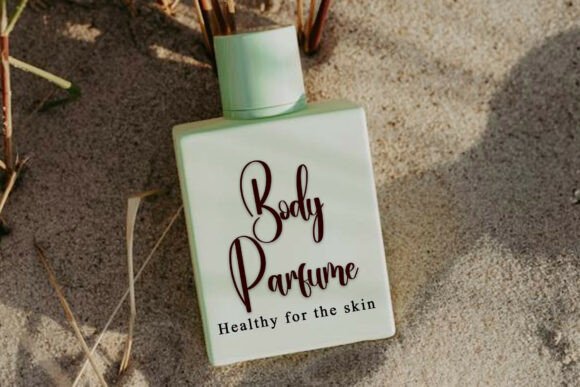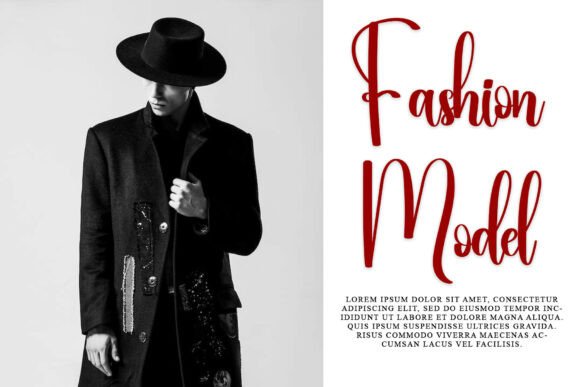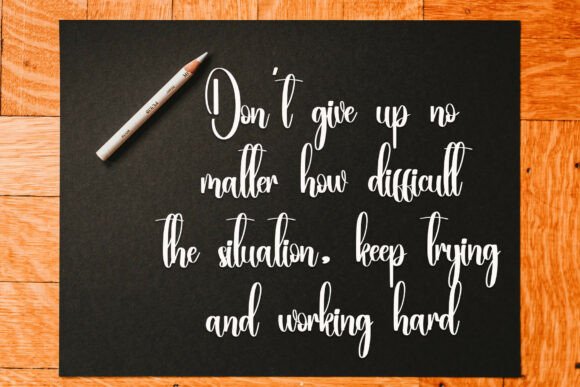
Introduction to Satisfying Font
As designers, we’ve all been there – staring at a blank canvas, trying to bring our creative vision to life. The perfect font can make all the difference. For me, it’s the moment when a project starts to take shape, and the right typography elevates the entire design. That’s where the Satisfying Font comes in – a stunning, elegant font that exudes a timeless classic calligraphy style.
This beautiful font is more than just a pretty face; it’s a valuable design resource that can elevate any creative project. With its impeccable form and balanced, varied design, it’s no wonder that designers are flocking to this free download. Plus, with its transparent background and high-quality design, it’s the perfect addition to any design portfolio.
- Includes a comprehensive character set with over 1000 glyphs, covering a wide range of languages and alphabets.
- Designed with a clean and modern aesthetic, making it suitable for a variety of design projects, from logos to typography.
Honest Review: Satisfying Font
As a designer, I’m always on the lookout for new and exciting design resources to enhance my creative projects. Recently, I had the chance to try out the Satisfying Font, and I’m excited to share my honest review with you.
What works well: ✨ The Satisfying Font is a high-quality font that comes in a variety of styles, making it perfect for a range of creative projects. I love how easy it is to use and customize, and the transparent background option is a huge plus. It’s also a free download, which is always a bonus!
What’s not so great: ⚠️ While the Satisfying Font is a great addition to any design project, I did find that the font library could be more extensive. Some of the styles feel a bit limited, and I wish there were more options for customization.
Overall impression: I’m really impressed with the Satisfying Font, and I can see myself using it for a variety of design projects. It’s a great resource for designers who want a high-quality font without breaking the bank. If you’re looking for a new font to add to your collection, I’d definitely recommend checking out the Satisfying Font.
- Pros: High-quality font, easy to use, transparent background option, free download
- Cons: Limited font library, limited customization options
Satisfying Font
The Satisfying Font is a popular design resource that offers a wide range of high-quality, visually appealing fonts perfect for any creative project. With its transparent background and customizable features, it’s a must-have for designers and non-designers alike.
Use the Satisfying Font to add a touch of elegance to your presentations and documents in PowerPoint or Word.
To get the most out of the Satisfying Font, experiment with different font sizes, colors, and styles to find the perfect combination for your project.
The Satisfying Font is perfect for:
Creating social media graphics and posts
Designing logos and branding materials
Adding a touch of elegance to presentations and documents
The Satisfying Font is available in high-resolution formats, making it suitable for use in large-scale designs, such as billboards or posters. The font’s high-quality design ensures that it will remain crisp and clear, even when enlarged to a large size. Additionally, the font’s transparent background allows for easy layering and compositing in design software, making it a versatile choice for creative projects.